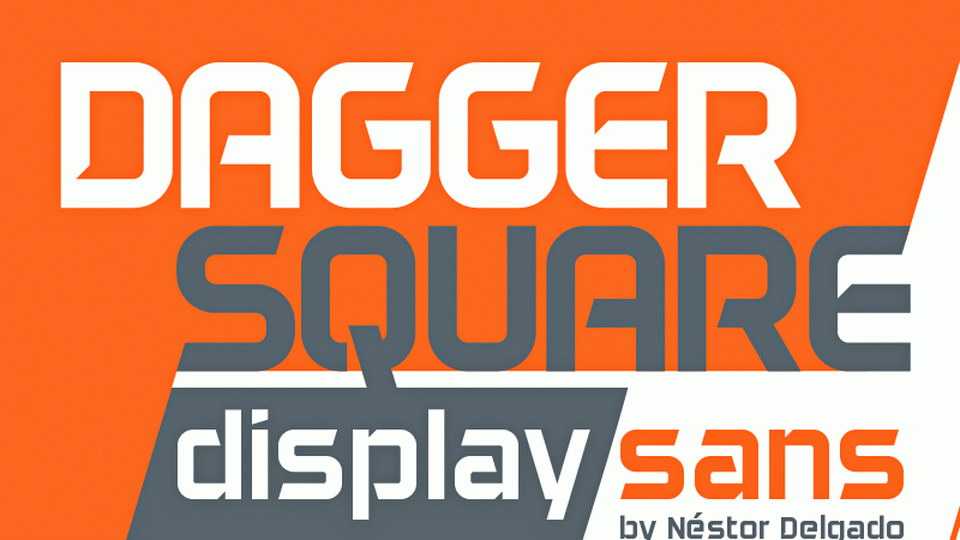
Download Daggersquare typeface, a geometrical display sans font with a techno style in Regular and Oblique style. Daggersquare font is great for sport branding, techno designs, headlines, posters, banners and more.
Designer: Néstor Delgado